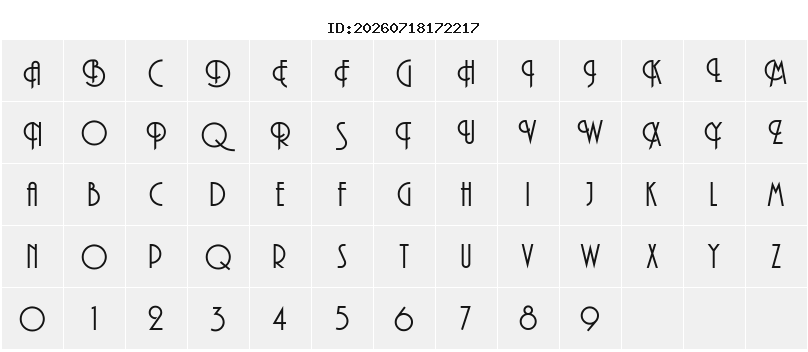
• Font Name: Curvi
• Full Font Name: Curvi
• PostScript Name: Curvi
About Curvi.ttf
Curvi.ttf is a modern, elegant sans-serif font designed for ultimate readability and visual harmony. Perfect for branding, headlines, web design, and print materials.